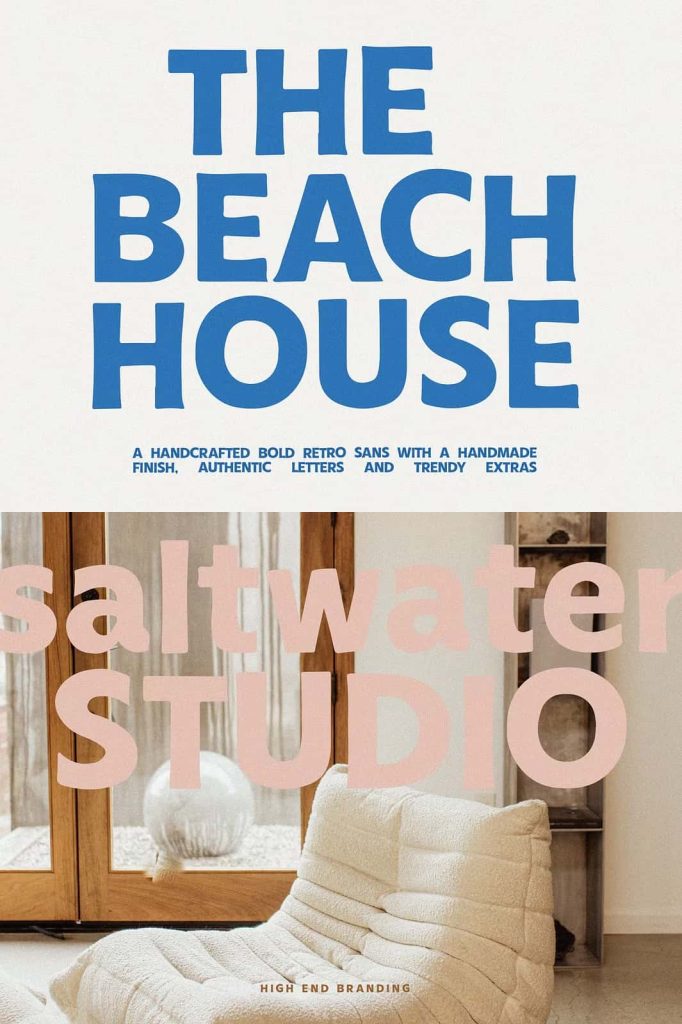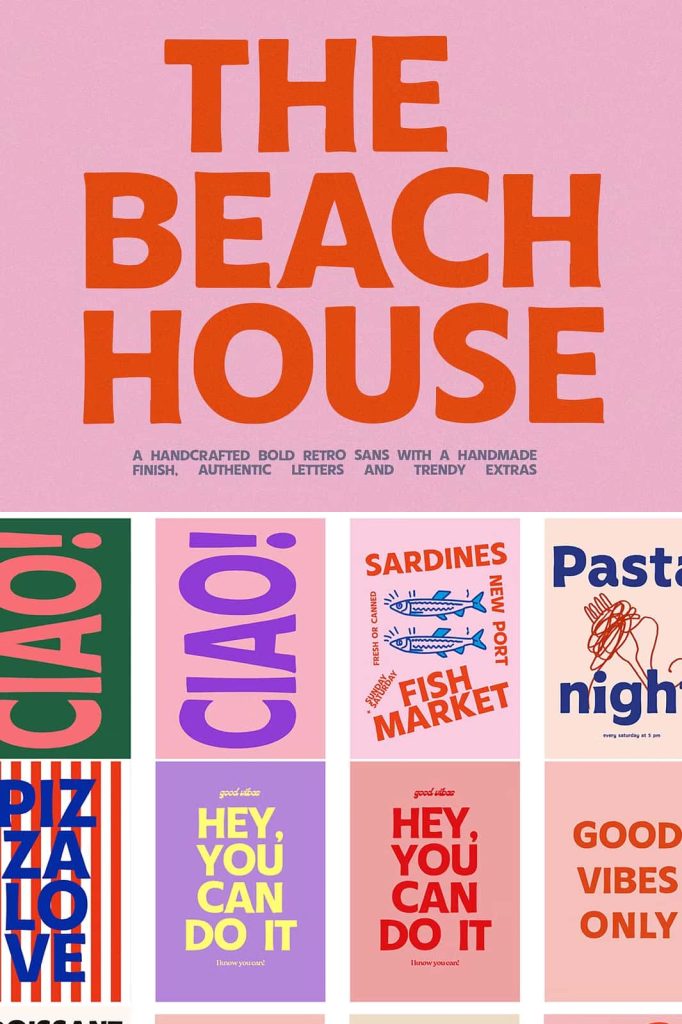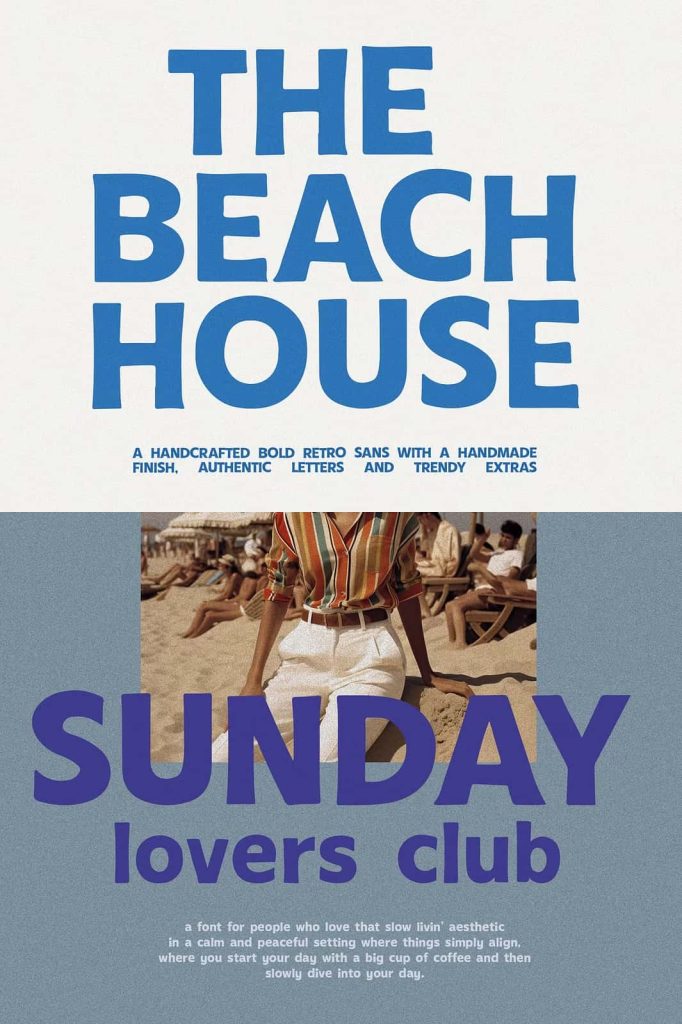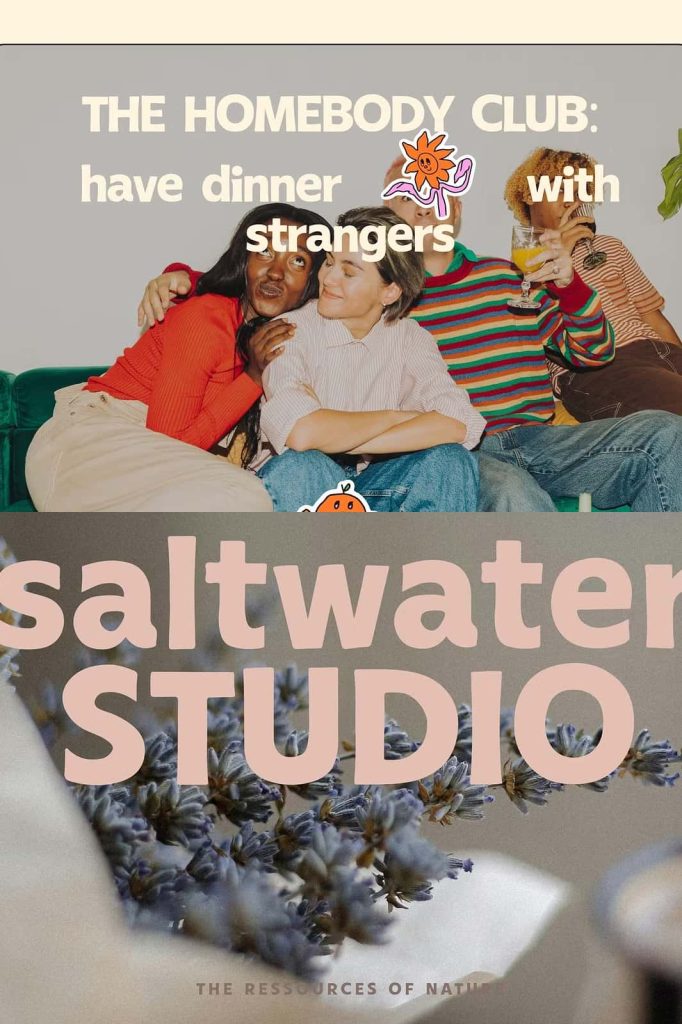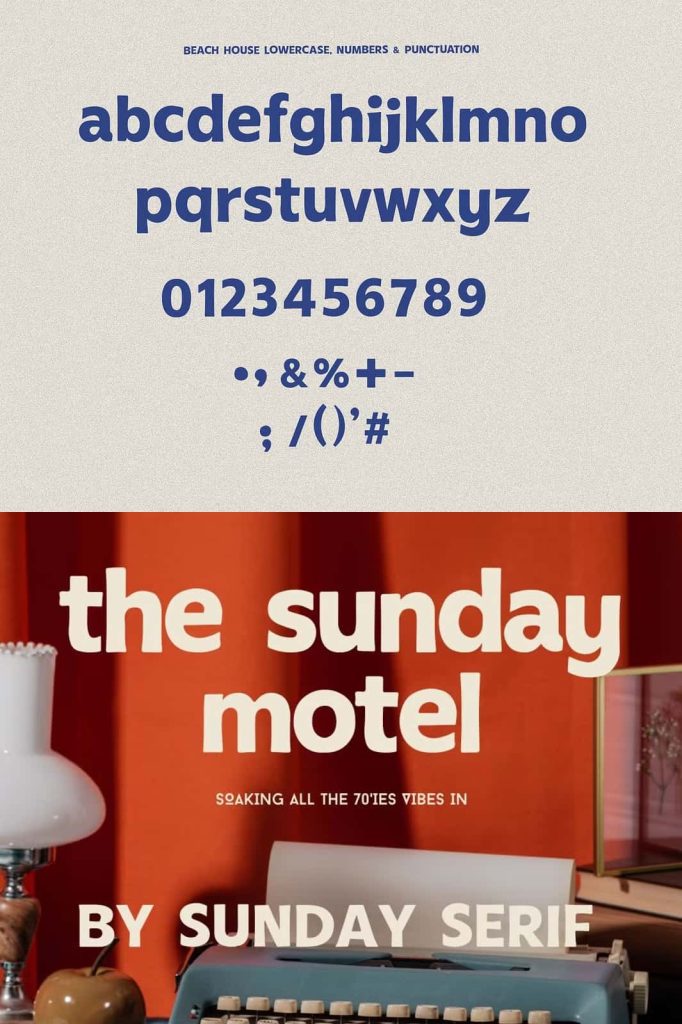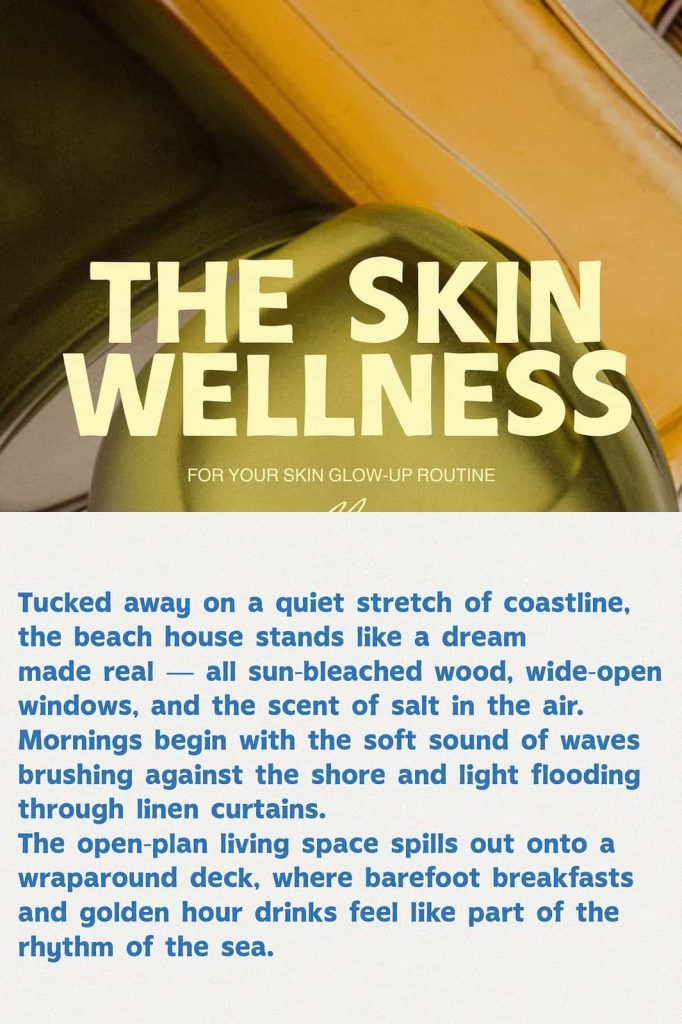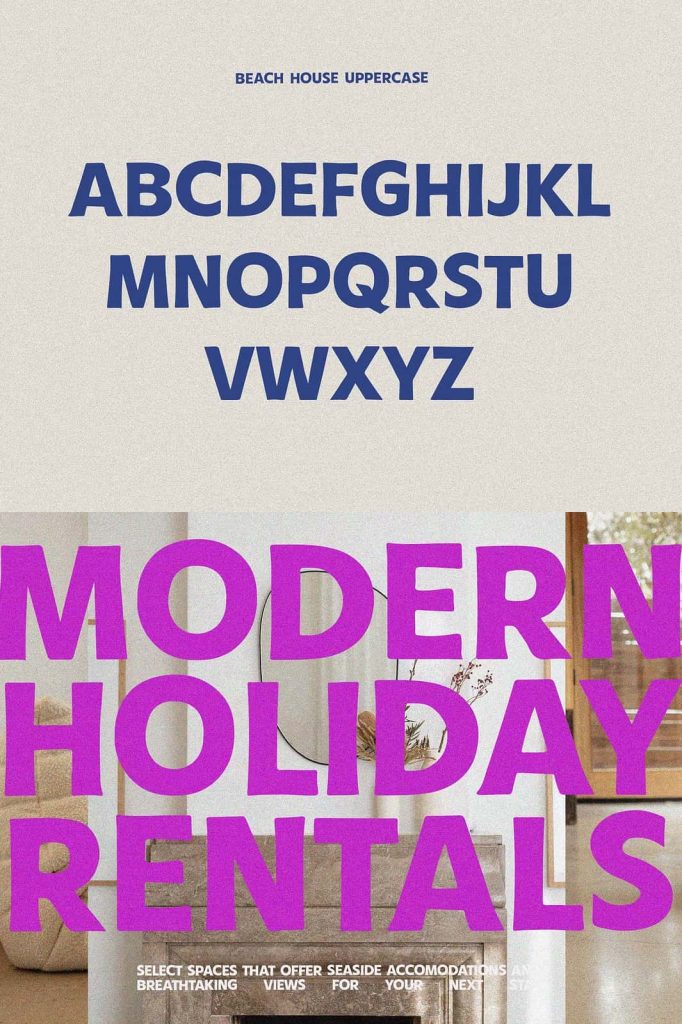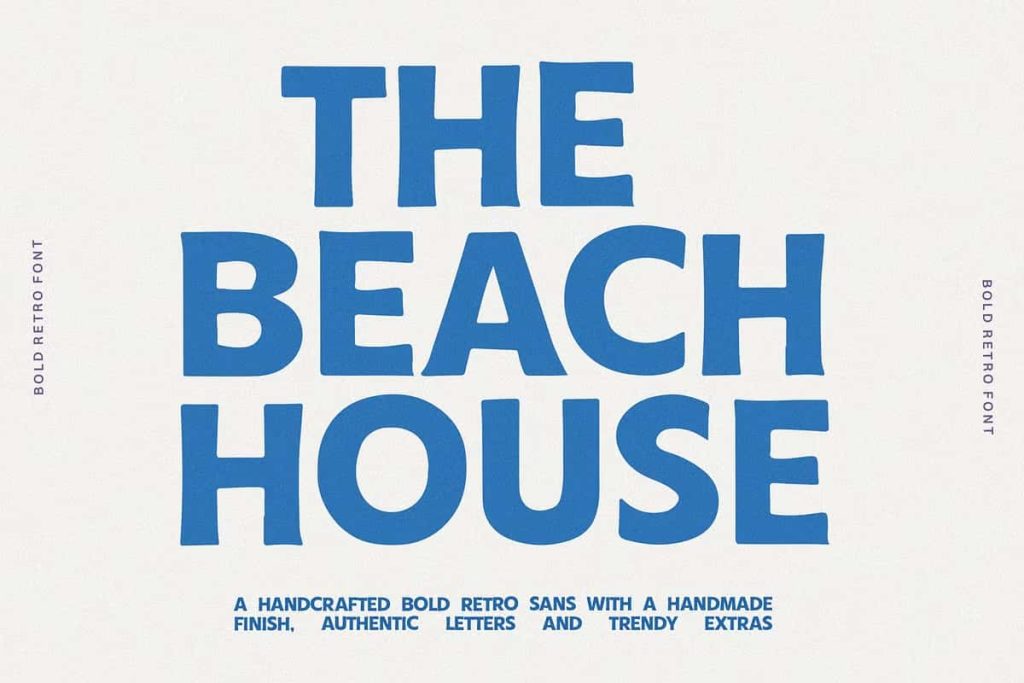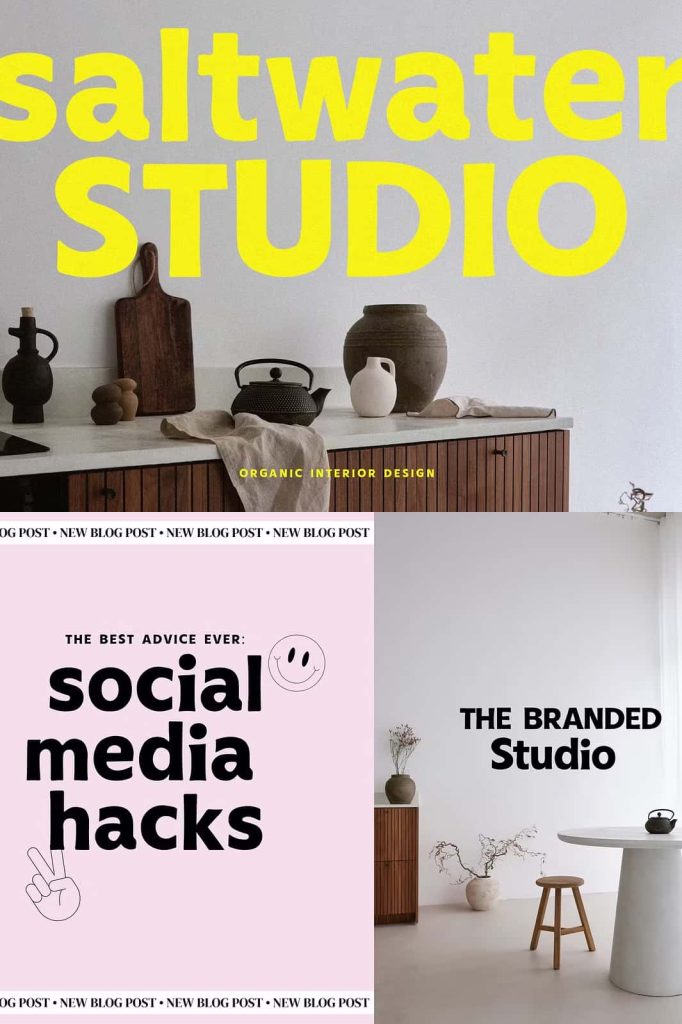
Beach House Bold Sans Serif Font: A Modern Typeface with Retro Attitude
Beach House is a bold sans serif font designed for creatives who want to make a confident statement. This modern typeface combines clean structure with subtle imperfections, creating a unique balance between precision and personality. It delivers an instantly eye-catching look that helps designs stand out in crowded visual spaces.
With its strong presence and on-trend aesthetic, Beach House works perfectly for designers who aim to create impactful typography. It blends editorial elegance with poster-style boldness, resulting in a font that feels both contemporary and nostalgic. This combination makes it a versatile choice for modern branding and creative projects.
What Makes Beach House Unique?
Beach House stands out because it does not follow a purely minimal approach. While it maintains a clean sans serif structure, it introduces slight imperfections that give the font a handcrafted feel. These details add warmth and character, preventing the typeface from feeling too rigid or mechanical.
The bold weight enhances visibility and impact, making it ideal for headlines and large-format text. Designers can rely on Beach House to capture attention quickly and communicate messages with clarity and confidence.
Key Characteristics
- Bold sans serif design for strong visual impact
- Clean structure with subtle handcrafted imperfections
- Modern style combined with retro-inspired elements
- High readability for headlines and display text
- Versatile use across digital and print media
A Blend of Editorial and Poster Aesthetics
Beach House draws inspiration from editorial design and typography posters. This influence gives the font a refined yet expressive appearance. It feels equally at home in fashion magazines, creative campaigns, and bold advertising layouts.
The retro-inspired elements add a nostalgic touch without making the font feel outdated. Instead, Beach House reinterprets classic design trends through a modern lens, allowing designers to create fresh and relevant visuals.
Why This Style Works
- Combines sophistication with bold expression
- Bridges the gap between modern and vintage design
- Enhances visual storytelling through typography
Best Use Cases for Beach House Font
Beach House performs best in projects that require strong visual hierarchy and immediate impact. Its bold and stylish appearance makes it ideal for creative industries where standing out is essential. Designers can use it to create memorable and engaging designs that capture attention instantly.
Ideal Applications
- Branding and logo design for modern businesses
- Editorial headlines in magazines and blogs
- Typography posters and promotional graphics
- Social media content that needs to stop scrolling
- Packaging designs with a sleek and stylish look
How to Use Beach House Effectively
To maximize the impact of Beach House, designers should focus on contrast and layout. Pair this bold sans serif font with lighter or more neutral typefaces to create balance. This approach ensures that the font remains the focal point while maintaining overall readability.
Use Beach House in larger sizes to highlight its unique details and bold structure. Provide enough spacing around the text to allow the letterforms to breathe and stand out. Avoid overcrowding the layout, as this can reduce the effectiveness of the design.
Design Tips
- Use for headlines and key messages to maximize visibility
- Combine with minimalist fonts for a clean contrast
- Apply strong layouts to emphasize bold typography
- Experiment with retro color palettes for added style
Beach House delivers a bold and modern typographic solution with a distinctive retro twist. Its clean yet imperfect design creates a unique visual identity that feels both contemporary and expressive. Designers who want to create impactful and stylish work will find this font an essential addition to their toolkit.
By using Beach House, you can elevate your typography, strengthen your branding, and create designs that leave a lasting impression. This font transforms simple text into a powerful visual statement that captures attention and communicates with confidence.